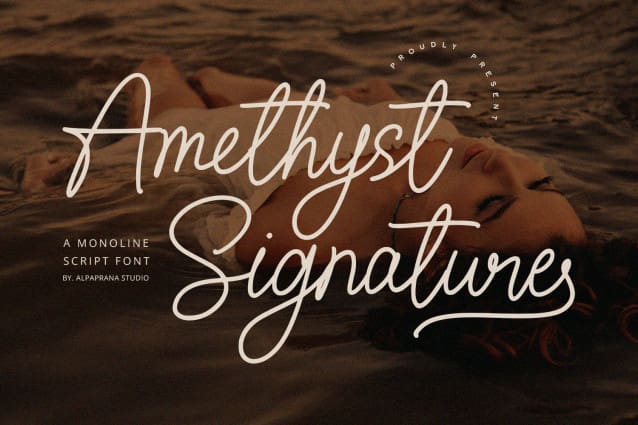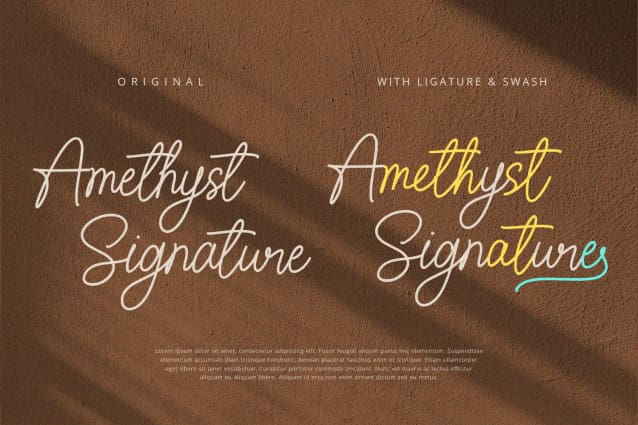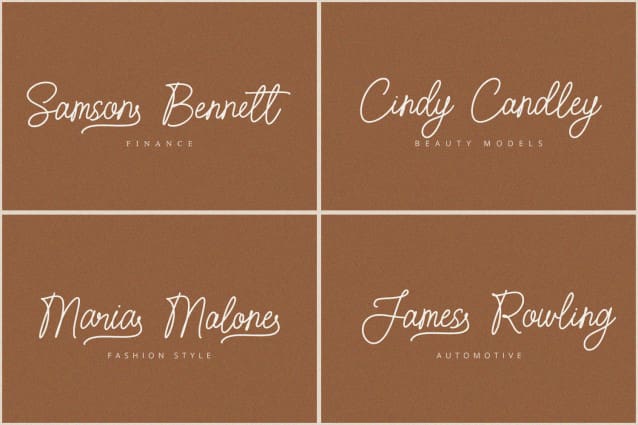
Amethyst Signature Font
Amethyst Signature Font is a script font with unique and modern feels. It will be perfectly used for Branding, Logo Design, Lettering, Logotype, Clothing, Poster, magazine, packaging, posters, shopping bags, t-shirts, book covers, photography, special events and other design project.